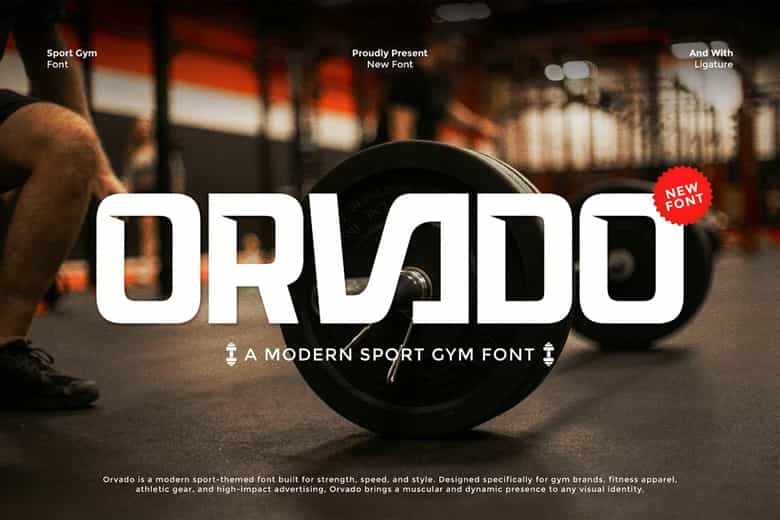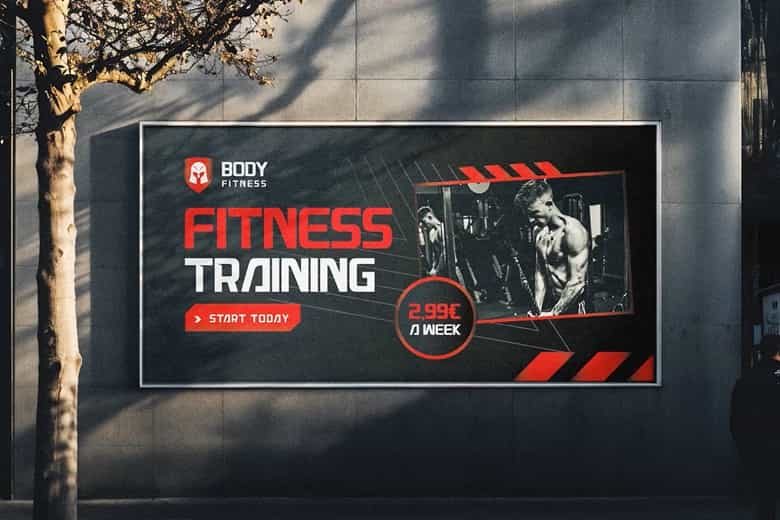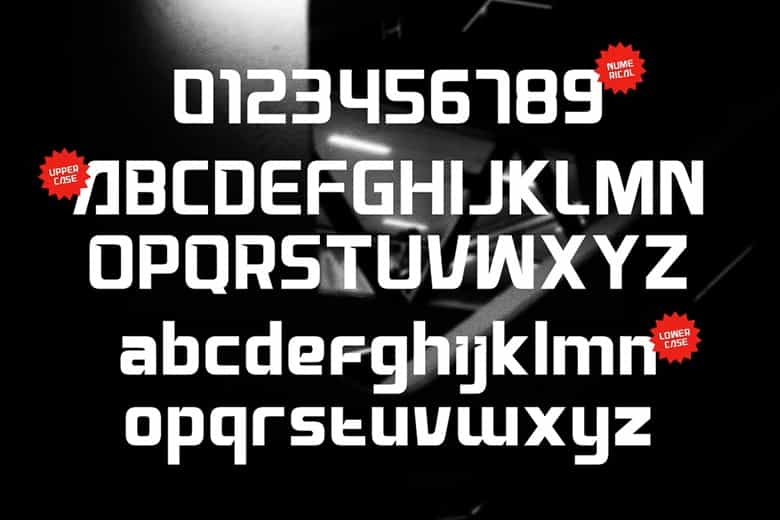
Ovardo is a contemporary display typeface, designed to serve in the environment of sport, fitness, and active branding. Ovardo with its audacious shape, geometric lines and strong impact adds dynamism and strength wherever it applies design. On an athletic apparel job, or gym promos, or daring logo jobs,